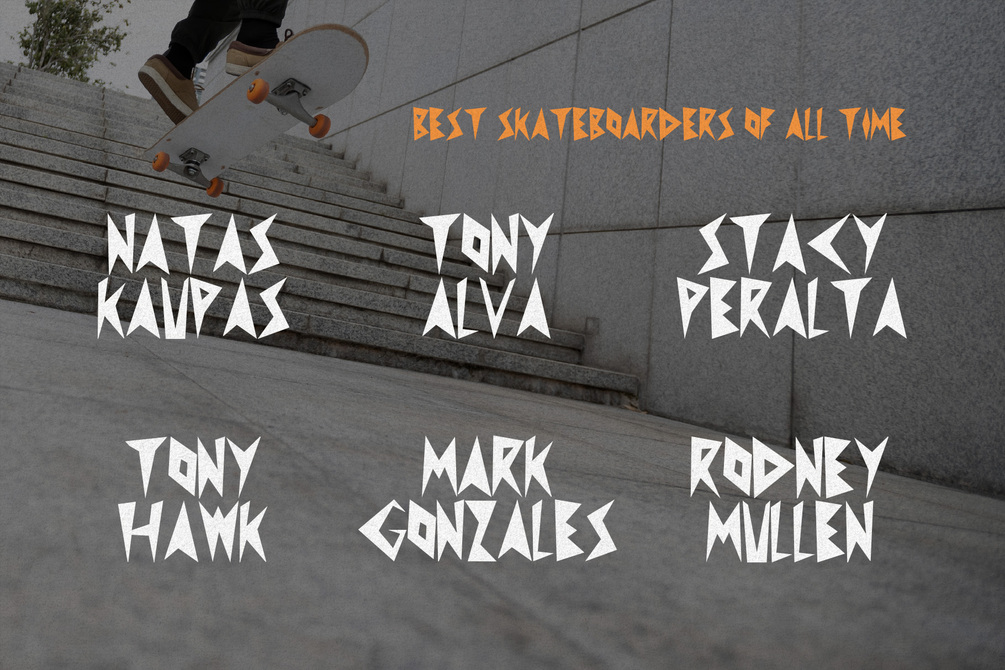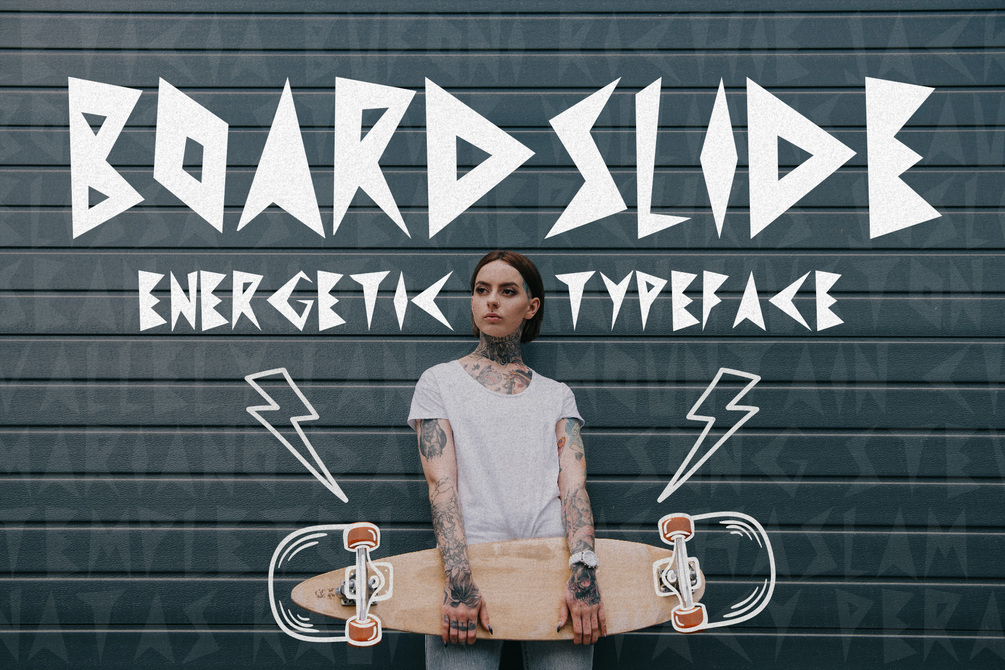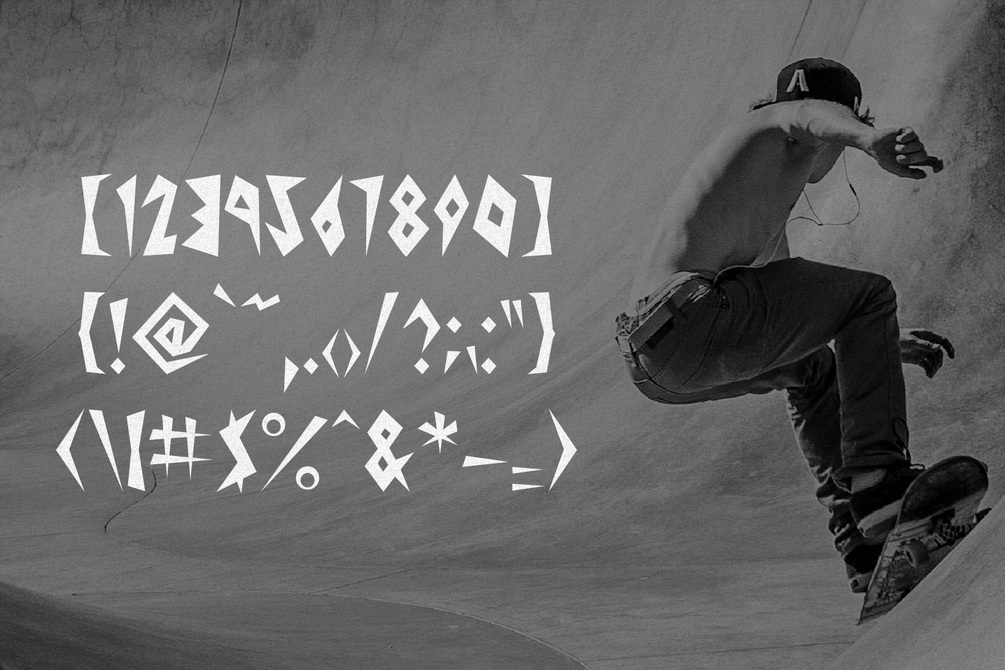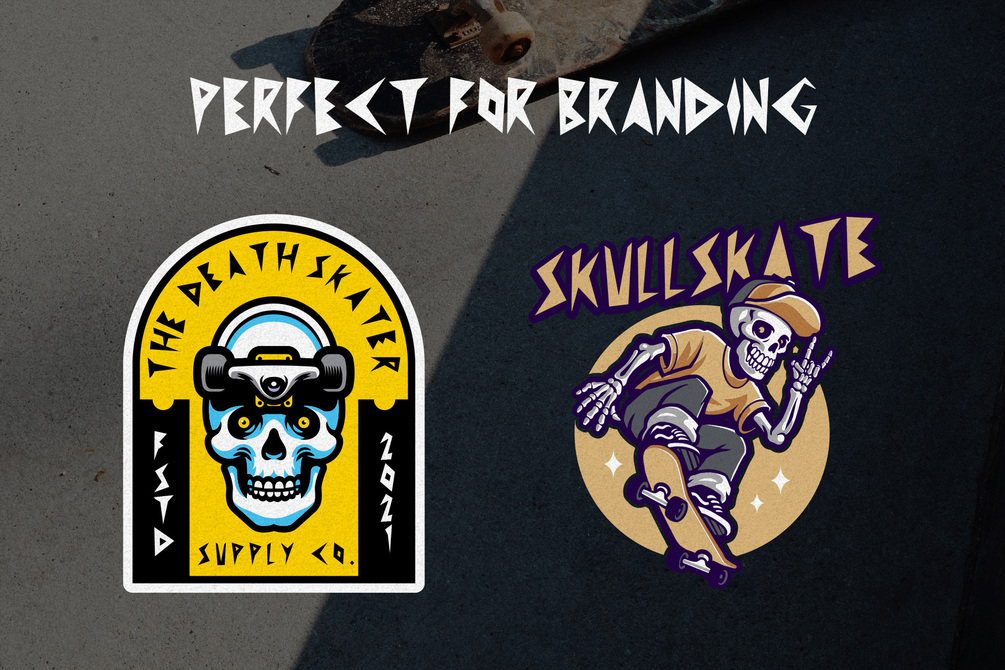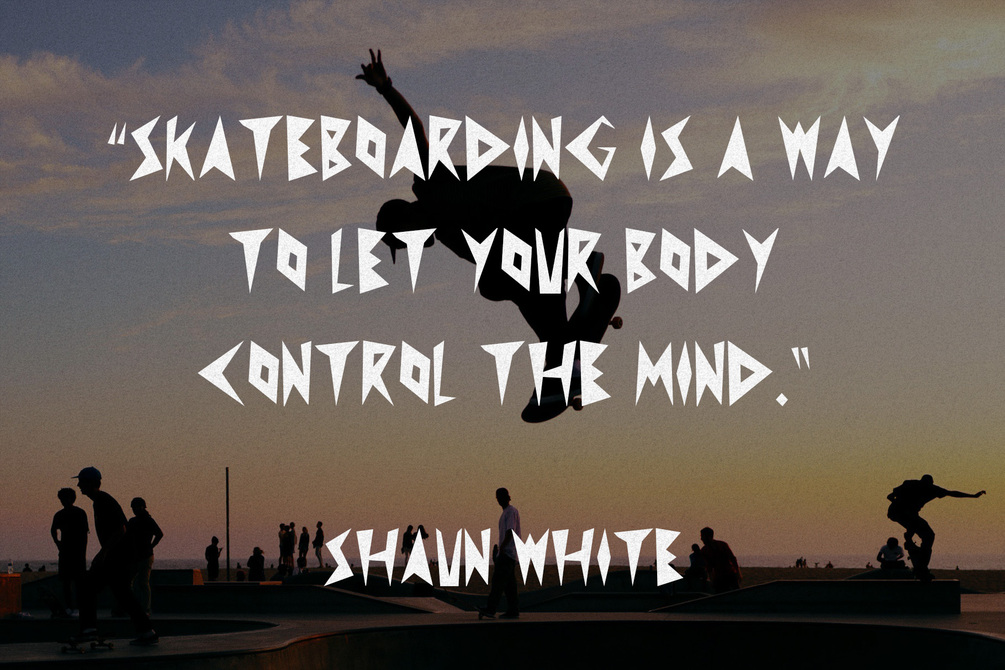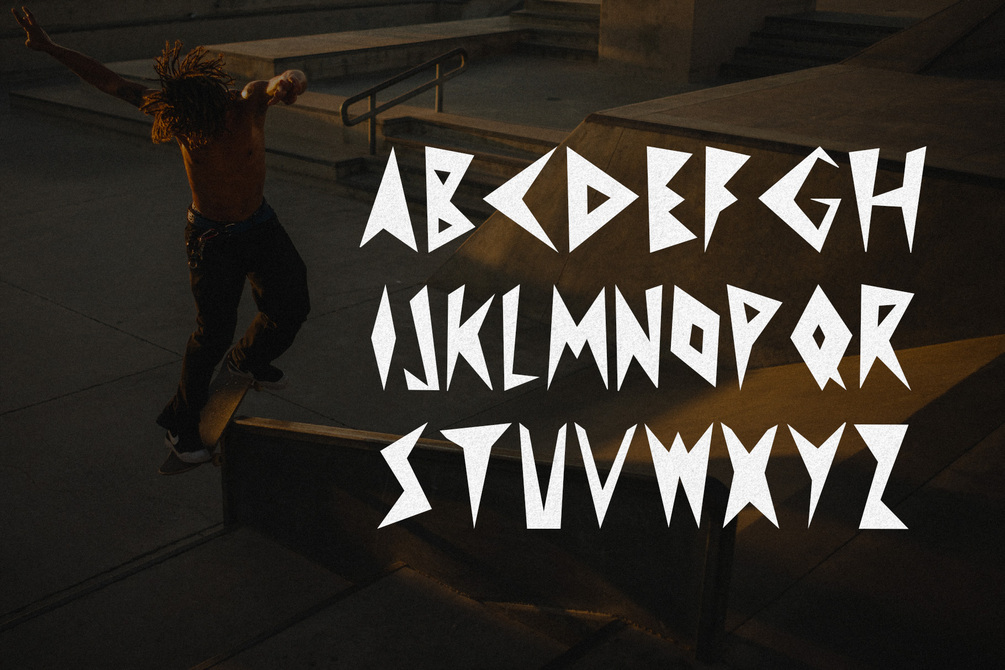
Boardslide - Energetic Typeface
Boardslide is a rad all caps typeface inspired punk and skateboarding culture. This sharp and energetic typeface is perfect for creating logos, headlines, social media posts, t-shirts, Youtube graphics, event posters, and much more. If you're looking to create a wild design, then Boardslide is perfect for you!